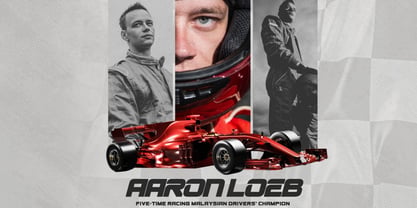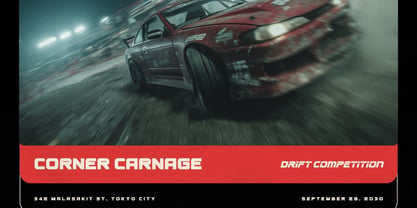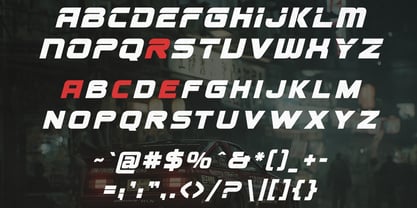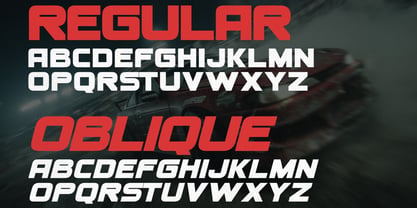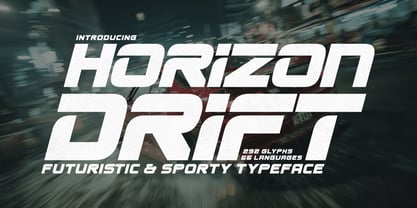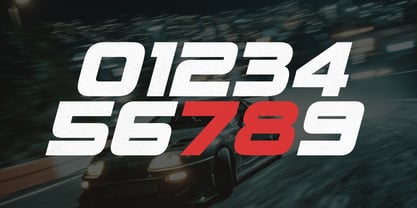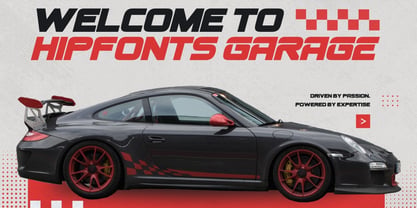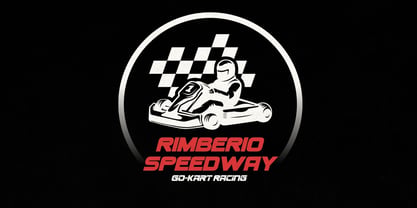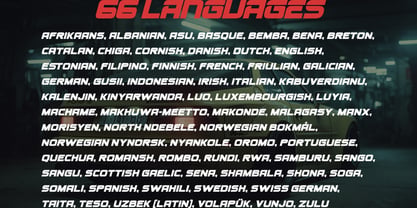
Horizon Drift
by Hipfonts
The Horizon Drift Font Family was designed by Igor Ovsyannykov and published by Hipfonts. Horizon Drift contains 2 styles and family package options. More about this family
Unleash speed, style, and sophistication with Horizon Drift, a modern typeface designed for the thrill of motion. Inspired by the high-octane world of racing, this bold, uppercase font embodies energy, precision, and futuristic elegance. With two versatile versions — Regular and Oblique — Horizon Drift gives your designs the freedom to go straight or lean into motion, creating a dynamic visual impact. The uppercase letters are clean and commanding, perfect for strong headlines, logos, and branding, while the lowercase letters feature unique variations and unexpected shapes, adding a modern, sporty, and speedy edge to any layout. Whether you’re crafting automotive branding, racing posters, futuristic designs, or bold editorial work, Horizon Drift is built to turn heads and ignite excitement. Push your typography to the fast lane and give your projects the speed, style, and attitude they deserve.
Designers: Igor Ovsyannykov
Foundry: Hipfonts